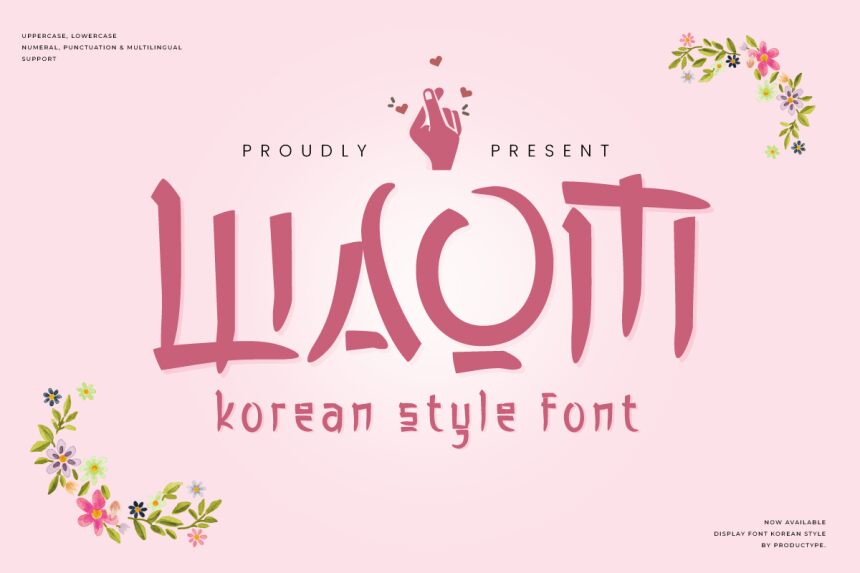
Waom, a mesmerizing typeface by Productype, emerges as a distinct voice in the realm of typography. With its semi-light weight and condensed width, it conveys a sleek yet substantial presence that captivates the eye. The font's exotic charm, seamlessly blends intrigue with legibility.